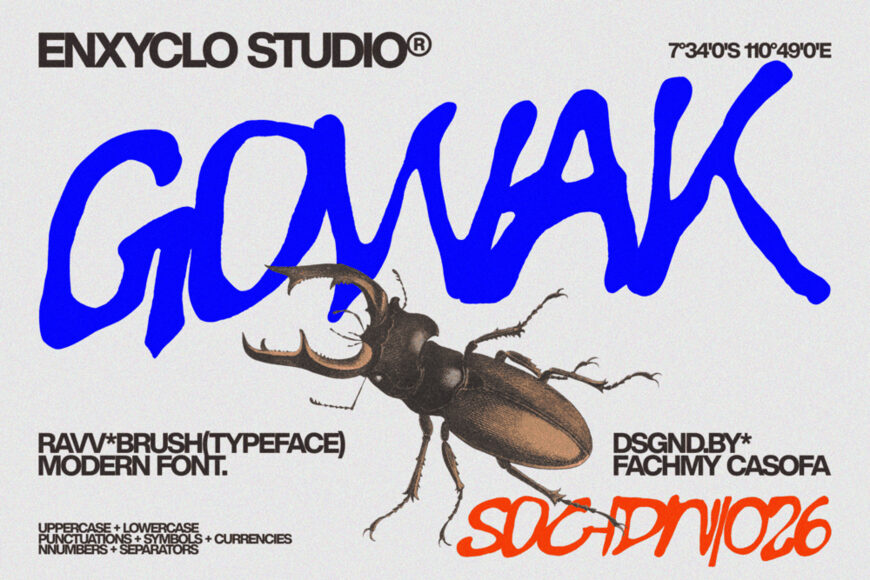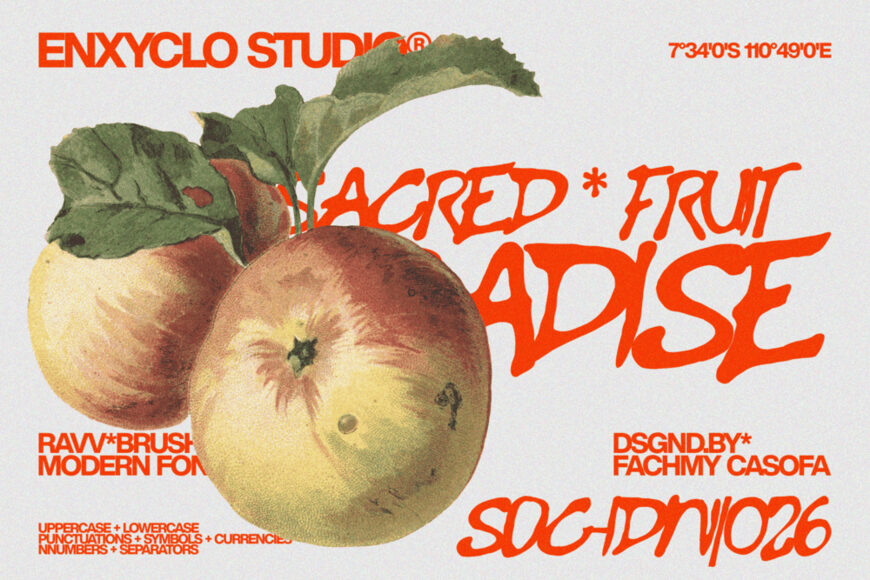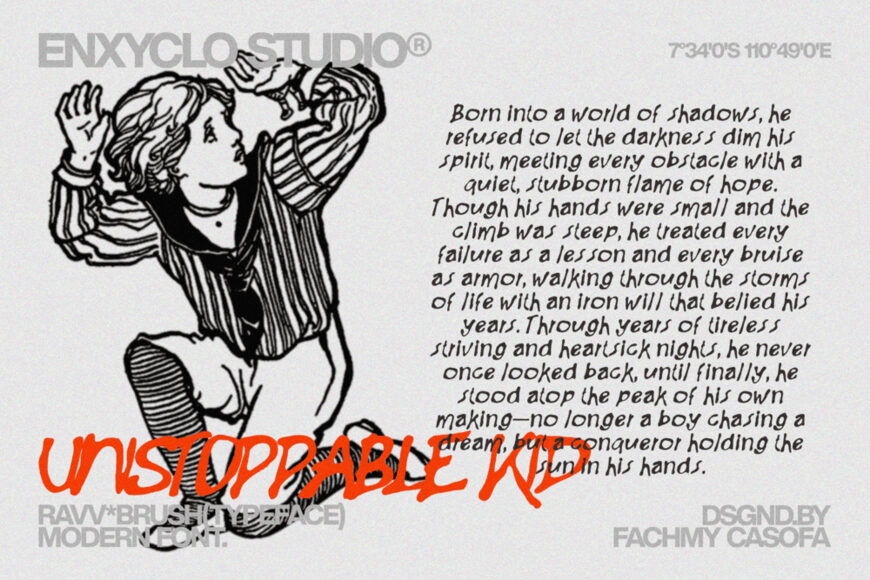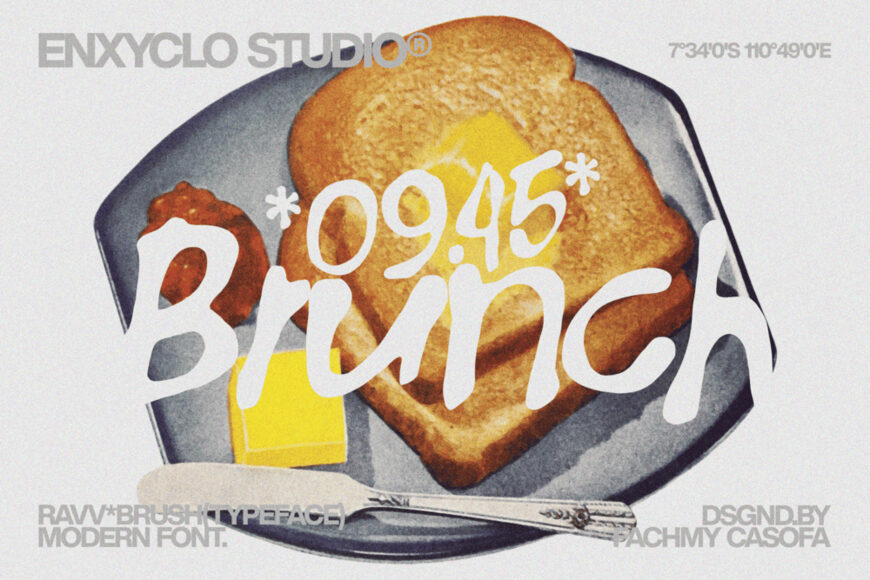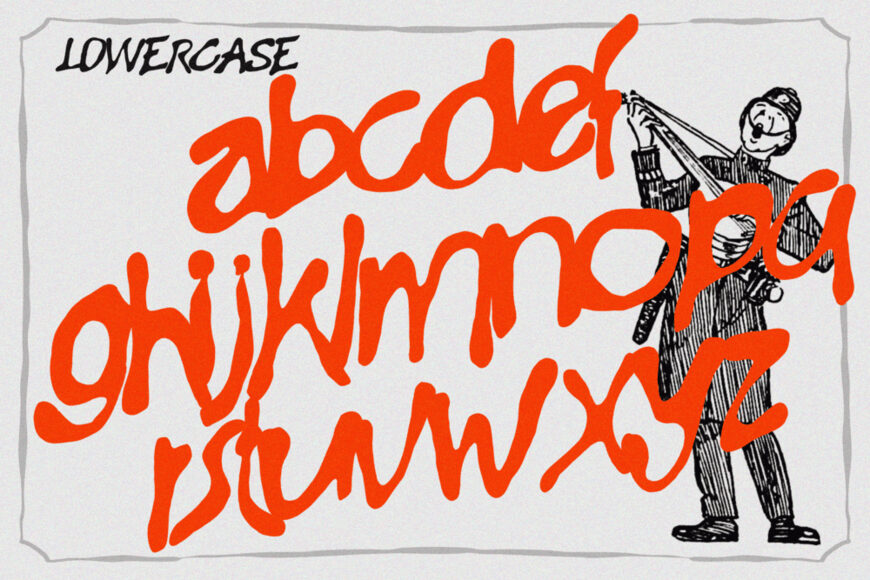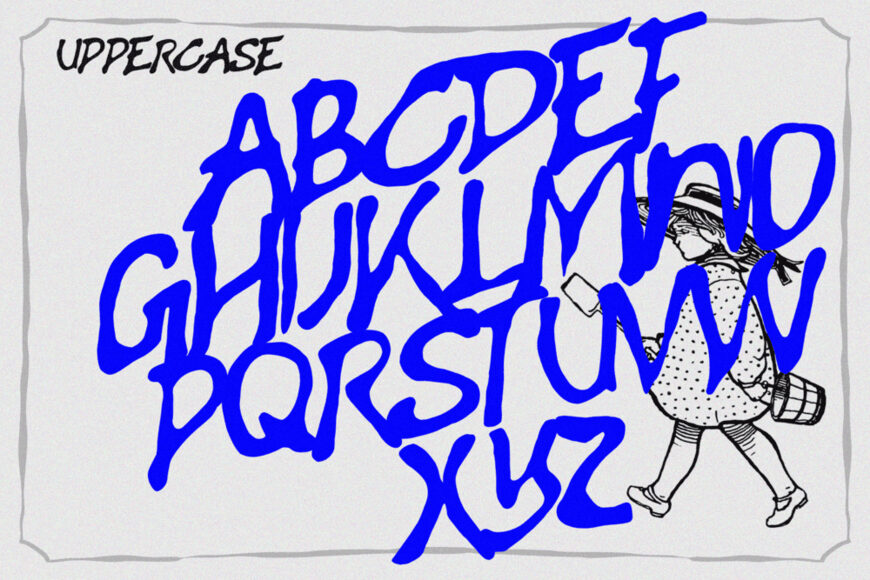
Gowak is a bold, raw expressive brush font crafted for modern brands that want to stand out with confidence and character. Inspired by rough hand-painted strokes and expressive lettering, Gowak blends raw energy with a clean, contemporary structure—creating a powerful balance between chaos and control.
Its rough yet intentional brush texture delivers an authentic, handmade feel while staying readable and minimal enough for modern design needs.